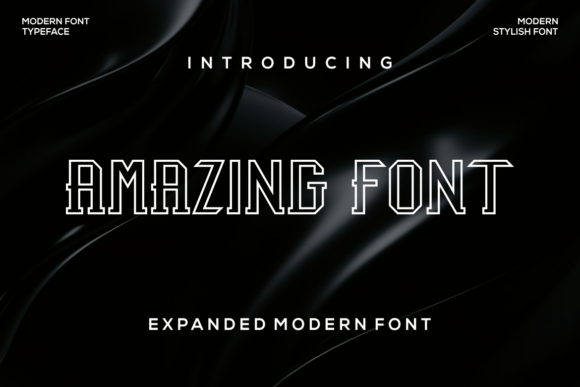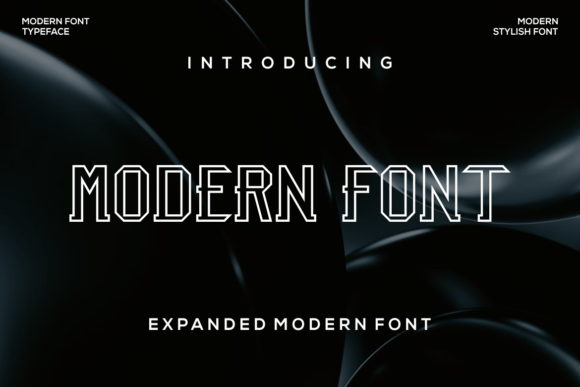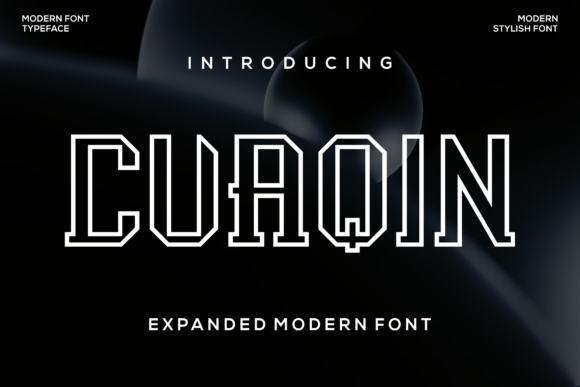
Introduction to Cuaqin Font
Presenting our new product **Cuaqin Font** – Modern Font is a bold and authentic display font.
This font is perfect for any branding project such as logos, t-shirt printing, creative products, and more extraordinary in a variety of contexts.
Cuaqin Font offers exceptional quality and versatility, making it a valuable addition to your design toolkit. Whether you’re creating for personal projects or commercial use, Cuaqin Font delivers professional results.